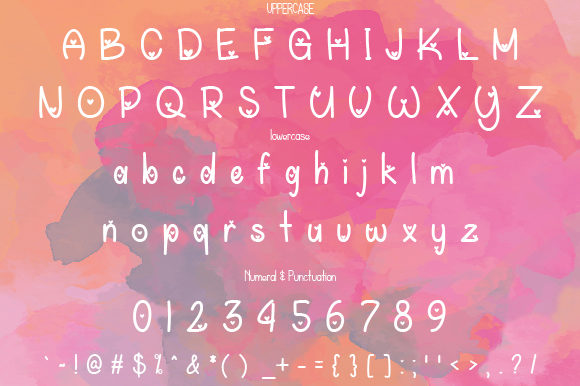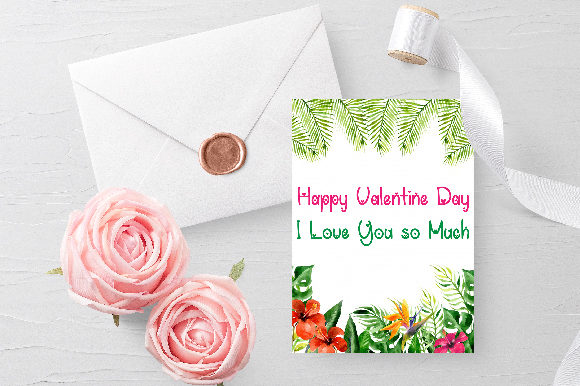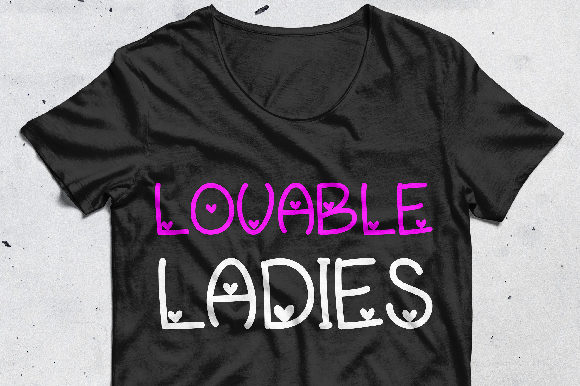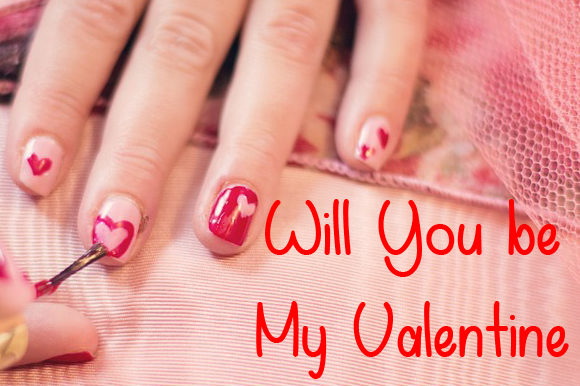
Darling Lovable Font
About Darling Lovable Font
The Darling Lovable is a loving and romantic script font. It has stylish and fun characters with lovely hearts.
It can be used for headings, signature’s, logos, wedding invitations, t-shirts, letterheads, signage’s, labels, news, posters, badges, and much more!